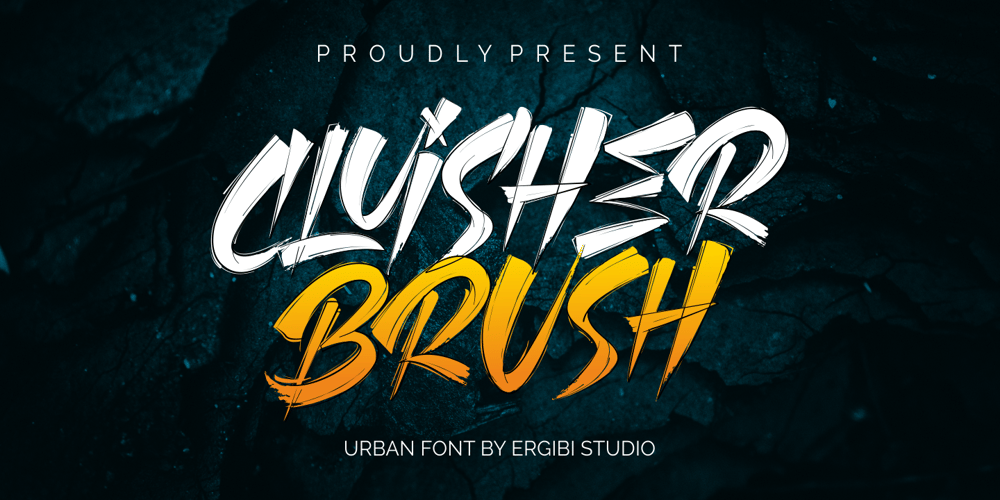
Cluisher Brush Font Family was designed by Riyadh Rahman and published by Ergibi Studio. Cluisher Brush contains 2 styles and family package options. PROUDLY PRESENT CLUISHER BRUSH is a brush type font which includes an outline style that you can adjust the color to make this font look more perfect. Cluisher Brush is ideal for logos, apparel, T-shirt, Hoodie, graffiti, quotes, product packaging, or anything which needs a typographic turbo-boost.if you have any Question please Message Me.Thank you ERGIBI STUDIO